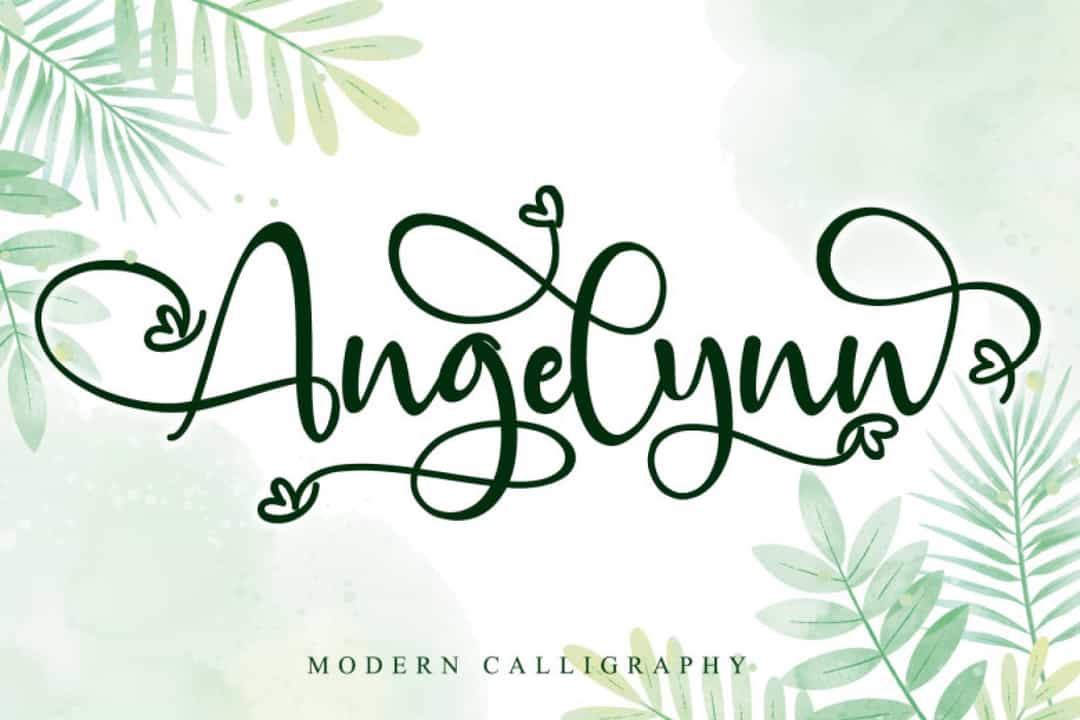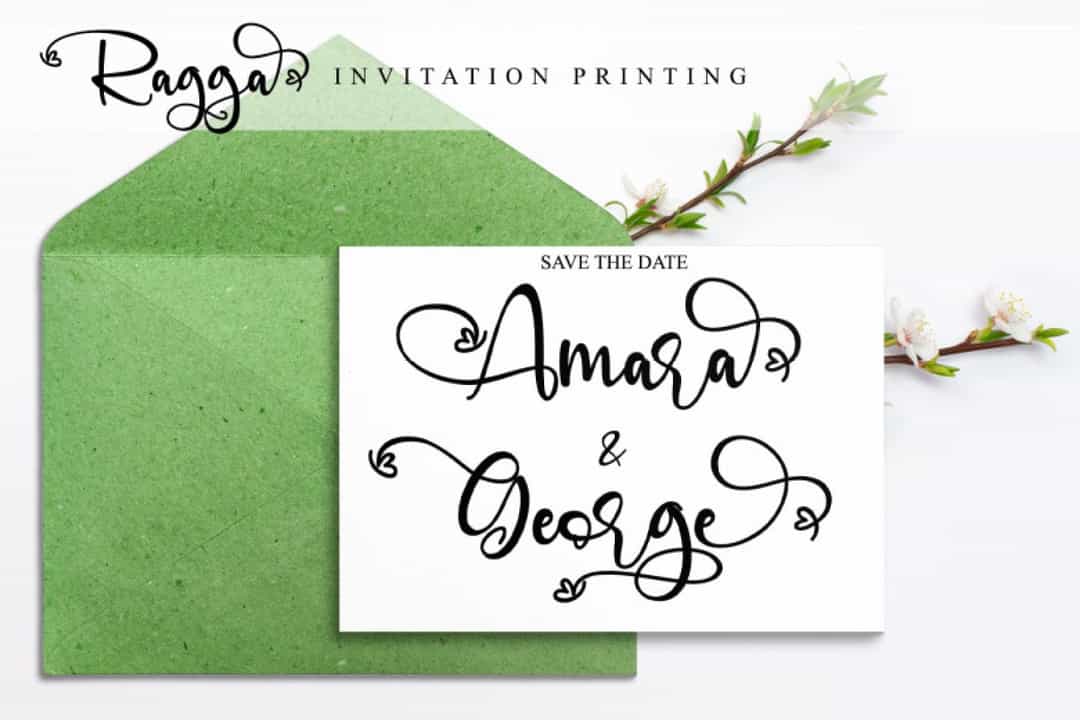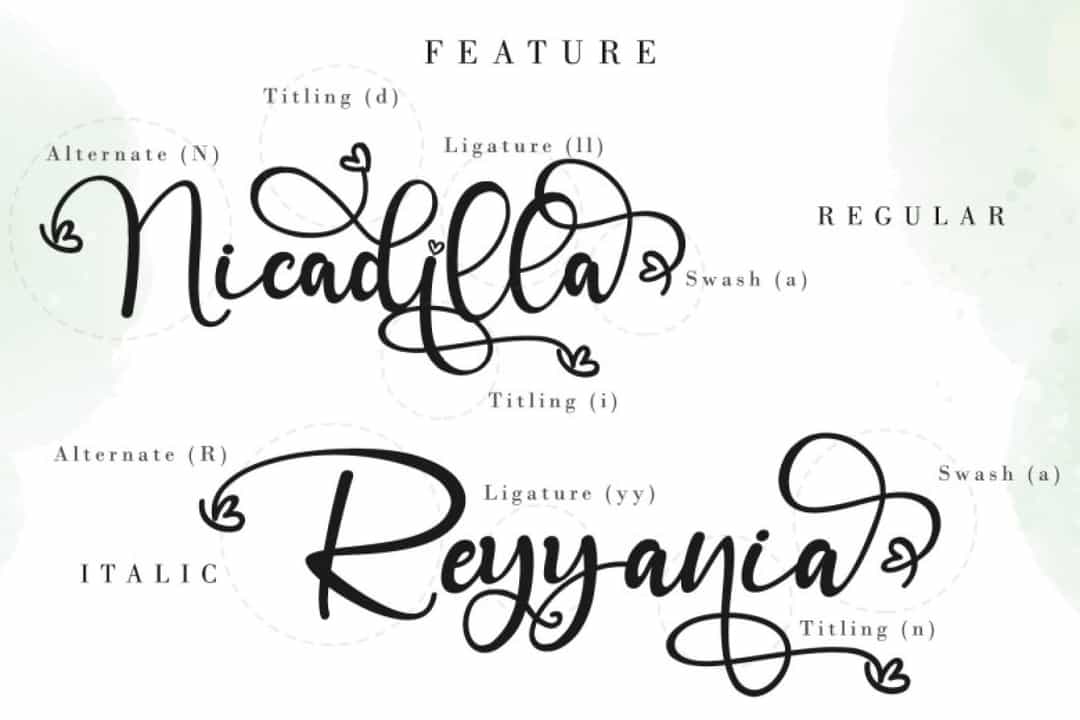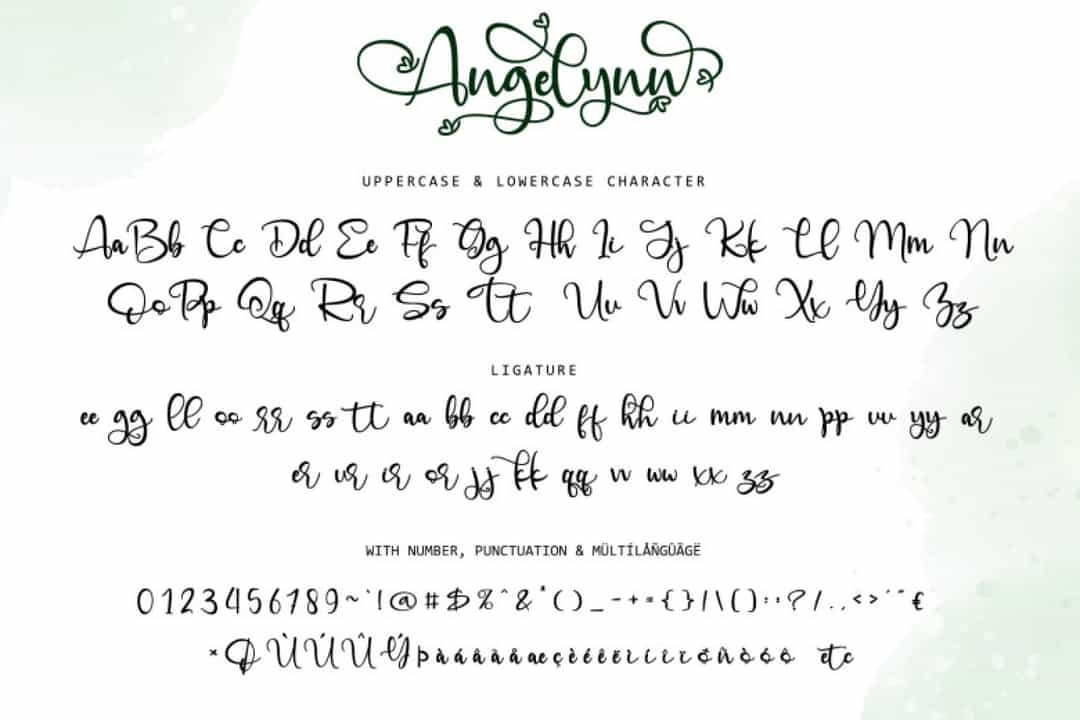
Angelynn is a beautiful and fluid script font with romantic style, that contains natural ligatures within the Open Type features as closely as possible to handwriting. Angienn Font is something that any designer cannot do without.